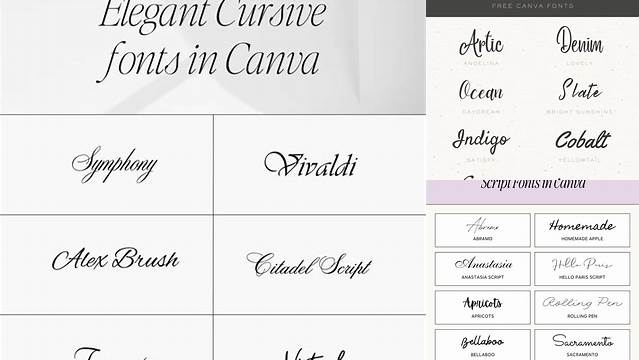
Elegant Cursive Fonts For Canva: Your Ultimate Guide
Hey guys! Ever felt like your Canva designs were missing that special something? Maybe a touch of elegance, a dash of personality, or just that wow factor? Well, chances are, the right cursive font might just be the answer! Cursive fonts can instantly elevate your designs, making them look more sophisticated, personal, and downright beautiful. But with so many options out there, where do you even start? Don't worry, we've got you covered! In this ultimate guide, we'll dive deep into the world of cursive fonts in Canva, exploring everything from choosing the perfect font for your project to mastering how to use them effectively. Get ready to unleash your creativity and transform your designs from good to stunning!
1. Understanding the Magic of Cursive Fonts in Canva
So, what's the deal with cursive fonts anyway? Why are they so popular, and what makes them so effective in design? Well, cursive fonts in Canva mimic the fluidity and elegance of handwriting, which is why they can add a personal and human touch to any project. Think about it: a handwritten note feels so much more special than a typed one, right? Cursive fonts evoke that same feeling. They're perfect for creating a sense of intimacy, warmth, and sophistication. But it's not just about aesthetics. Cursive fonts can also be incredibly versatile. They can be used for everything from wedding invitations and logos to social media graphics and website headers. The key is to understand the different styles of cursive fonts and how to use them appropriately. We'll get into that later, but for now, just remember that cursive fonts in Canva are a powerful tool for adding character and style to your designs.
2. Top 10 Free Cursive Fonts Available in Canva
Okay, let's get down to the good stuff! Canva is packed with tons of amazing fonts, and thankfully, there's a great selection of free cursive fonts in Canva to choose from. But with so many options, it can be overwhelming to know where to start. That's why we've curated a list of our top 10 free cursive fonts in Canva, guaranteed to make your designs shine. These fonts are not only beautiful but also highly versatile, meaning you can use them for a wide range of projects. We'll give you a quick overview of each font, highlighting its unique characteristics and suggesting the types of projects it would be perfect for. Get ready to discover your new favorite cursive fonts in Canva!
3. Premium Cursive Font Options in Canva Pro
While Canva's free options are fantastic, sometimes you need that extra oomph that a premium font can provide. If you're a Canva Pro user, you've got access to an even wider range of premium cursive font options in Canva. These fonts often boast more intricate details, unique styles, and a higher level of refinement. Investing in a Canva Pro subscription can be a game-changer for your designs, especially if you're working on professional projects or want to stand out from the crowd. We'll explore some of the standout premium cursive font options in Canva and discuss why they might be worth the upgrade.
4. How to Choose the Right Cursive Font for Your Project
Choosing the right cursive font in Canva is crucial for ensuring your design communicates the right message. It's not just about picking a pretty font; it's about selecting a font that complements your overall design aesthetic and reinforces your brand identity. A playful, whimsical cursive font might be perfect for a children's book cover, but it would likely look out of place on a formal wedding invitation. We'll break down the key factors to consider when choosing cursive fonts in Canva, such as the project's purpose, target audience, and overall tone. You'll learn how to match the font's personality to the message you're trying to convey.
5. Pairing Cursive Fonts with Other Font Styles in Canva
One of the biggest challenges with cursive fonts in Canva is knowing how to pair them with other fonts. Using too many cursive fonts can make your design look cluttered and confusing, while pairing a cursive font with the wrong sans-serif or serif font can create a jarring visual effect. The key is to create contrast and visual hierarchy while maintaining a cohesive overall look. We'll share our top tips for pairing cursive fonts with other font styles in Canva, including specific font combinations that are guaranteed to work. You'll learn how to create balanced and visually appealing designs that use cursive fonts effectively.
6. Best Cursive Fonts for Logos in Canva
A logo is the face of your brand, so choosing the right font is absolutely essential. Cursive fonts in Canva can be a fantastic option for logos, especially if you want to convey a sense of elegance, sophistication, or personality. However, not all cursive fonts are created equal when it comes to logo design. Some fonts might be too delicate or difficult to read at small sizes, while others might not be scalable enough for various applications. We'll explore the best cursive fonts for logos in Canva, highlighting the characteristics that make them ideal for branding. You'll also learn some key principles of logo design, such as readability, versatility, and memorability.
7. Cursive Fonts for Invitations: Weddings and More
Invitations are a classic application for cursive fonts in Canva. Whether you're designing wedding invitations, party invitations, or even formal event invitations, a beautiful cursive font can add a touch of elegance and sophistication. The right cursive font can set the tone for the entire event, conveying the level of formality and creating anticipation among your guests. We'll showcase some stunning cursive fonts in Canva for invitations, focusing on fonts that are both beautiful and highly legible. You'll also get tips on layout, typography, and other design elements that will make your invitations truly stand out.
8. Using Cursive Fonts in Social Media Graphics on Canva
Social media is a visual medium, so using eye-catching fonts is crucial for grabbing attention and conveying your message effectively. Cursive fonts in Canva can be a great way to add personality and style to your social media graphics. However, it's important to use them strategically and avoid overdoing it. You want your message to be clear and readable, even on small screens. We'll explore the best ways to use cursive fonts in social media graphics on Canva, including tips on font pairing, color contrast, and overall design principles. You'll learn how to create social media visuals that are both beautiful and effective.